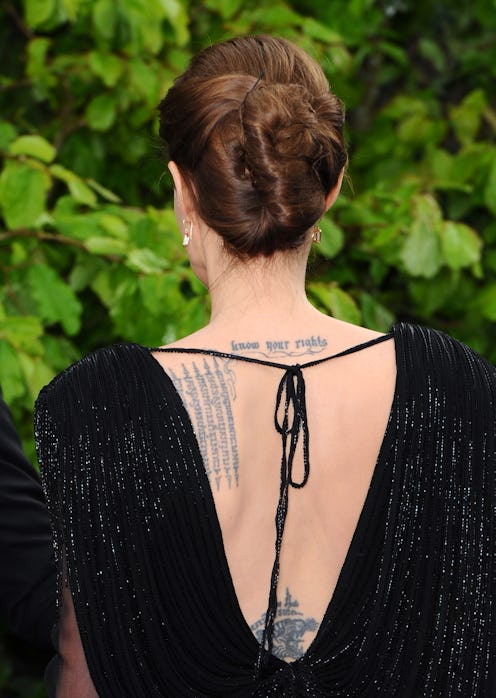
Some of the most personal tattoos are those with words or script incorporated into the overall piece or those that are comprised solely of words without much other visual embellishment, so finding the best fonts for tattoos is key when planning some new ink. When you factor a favorite saying, song lyric, or film dialogue quote into a tattoo, it's instantly customized and such a personal representation of you! So it's of critical importance for tattoos with words to be in legible fonts and for the words to be in a crisp, clear, properly sized script.
In addition to picking a font others can read, the other important thing to consider is that the font should aesthetically match the rest of the tattoo, if applicable.
"The top three fronts for females [getting tattoos], in my experience, have been the Queen of the Moon, Birds of Paradise, and the Angilla fonts," Joe Klein of Majestik Creations in Mooresville, Indiana tells me over email. "They are all simple enough to be legible but still hold a 'feminine' quality, as far as flowing, curvy, and dainty properties."
The Angilla font is best for "bigger pieces and has enough room for half-shading or color-filling the letters," according to Klein. He said that Queen of the Moon and Birds of Paradise "have virtually unlimited ways to add different filigree and give it the wispy, sensual look."
Even though these are his picks for pre-made fonts, Klein thinks that custom fonts are actually the best option for anyone.
"In my professional opinion, having an artist that can design and draw original fonts out of their heads is sometimes the best way to go as far as staying original and setting your own vibe for your piece," Klein told me. "After all, tattoos are a form of self-expression and originality screams, 'I am my own person.'"
Klein noted that it's important to not "cram a lot of script into a small area when tattooing. That's because "over time the derma pockets in your skin grow; so the ink will spread and your script will be hard to read, if legible at all." No wants that, so take heed!
Brian Keith Thompson, owner of Body Electric Tattoo in Los Angeles, doesn't recommend specific fonts. Rather, he suggests doing a little research to find the perfect lettering. "I see a lot of basic scripts being used right now," Thompson tells me. "But beyond that, there’s really no specific font that’s particularly popular. There are literally thousands of them nowadays. Any font is good, depending on personality and what you're looking for."
He continues by mentioning that many people turn to websites that generate phrases in specific fonts, so they can see exactly what the piece will look like. "A lot of people go to Da Font and choose one, then bring it into the studio. In 1992, it was different. But these days, you can test-drive them, which is pretty cool."
Tattoo apprentice and NYC publicist Rachel Rosenberg offered some insight to me regarding choosing a font, saying, "In my opinion and experience, an embellished script font works best for most wording that will be tattooed. A very nice cursive that will move with the body’s natural curves, no matter where the tattoo is placed, will nine times out of 10 be your best option."
However, she did explain why certain fonts are less desirable. "Bolder fonts, like Old English and Typewriter fonts, require a lot of fill in with black ink. Filled-in wording, with a lot of black, by a non-experienced tattoo artist, will heal and you will see the missing circles they thought they had achieved while tattooing."
But the golden rule is this. "Wording though, no matter what the font, should be the proper size," Rosenberg said. "With time, a smaller-sized font will most likely become blurred and require a touch up. Listen to your artist if they think you’re going too tiny! A nice cursive with fluid embellishments, for me, is the way to go."
Who knew there were so many font options? Do your research and due diligence before inking up, and recognize that bigger will likely be better in the long run. If your tattoo is a literal statement, you want people to be able to read it.